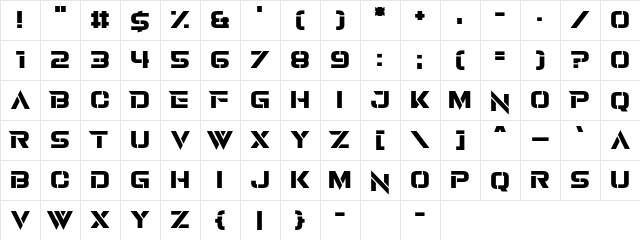
Complete Revamped Regular glyph index. Displaying only characters natively supported by Revamped Regular font.
Revamped is a composed and adaptable typeface that performs quietly and consistently across a wide range of design contexts.